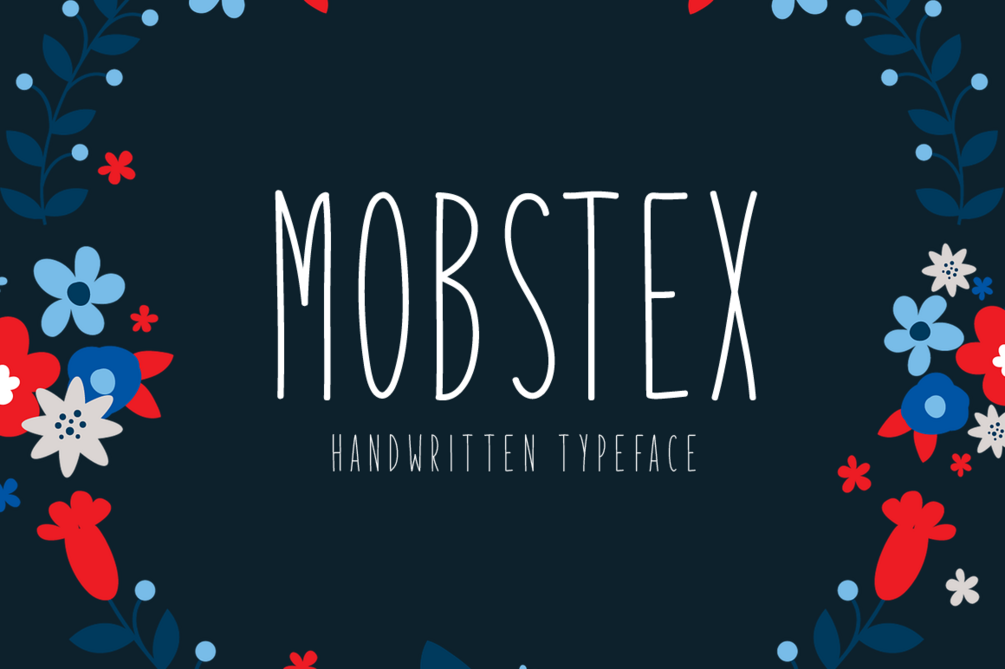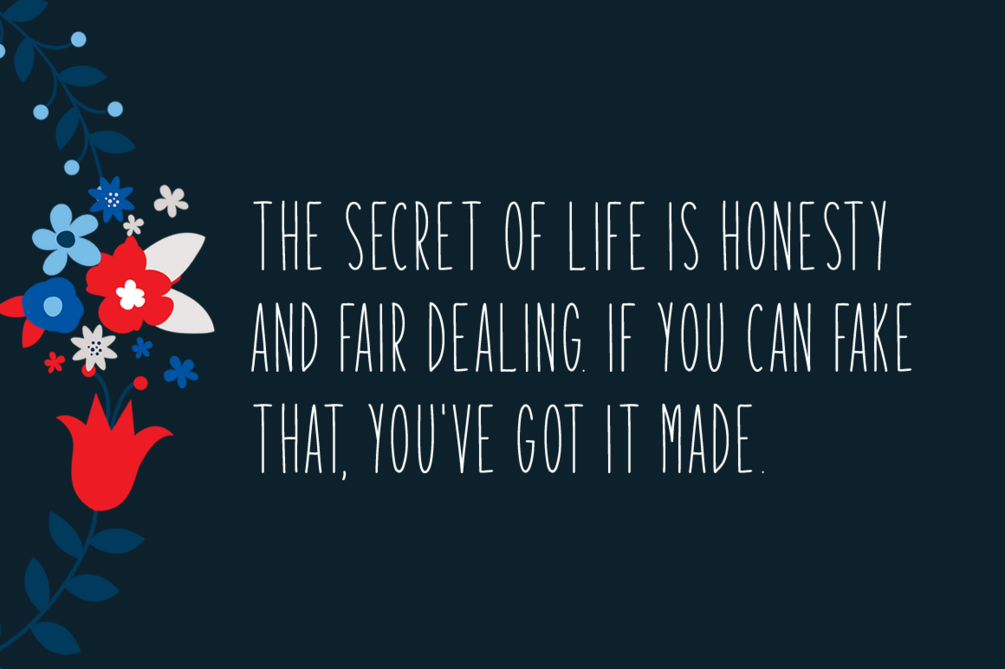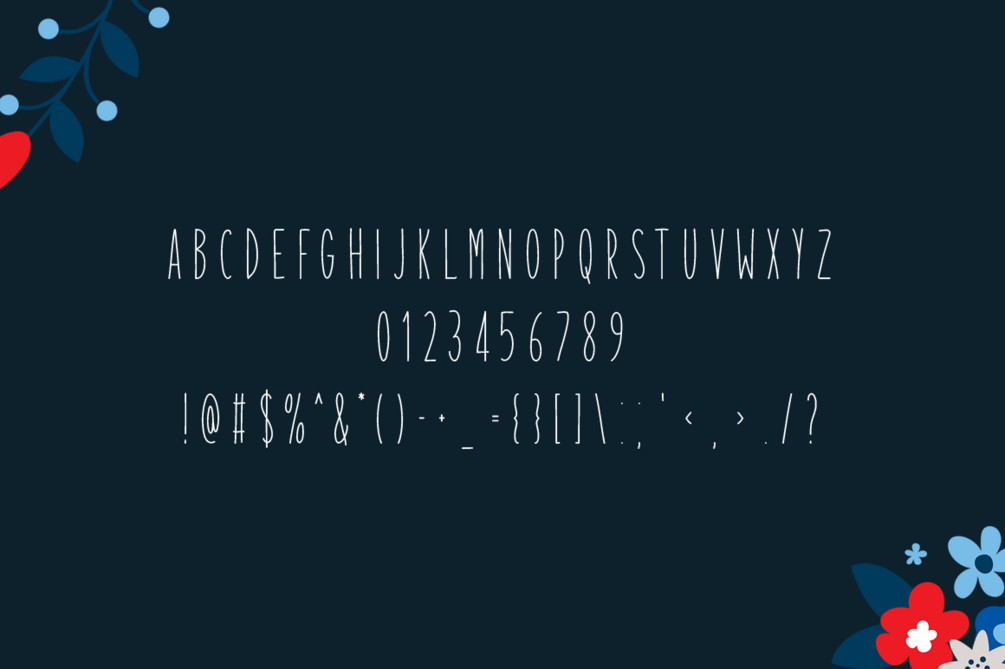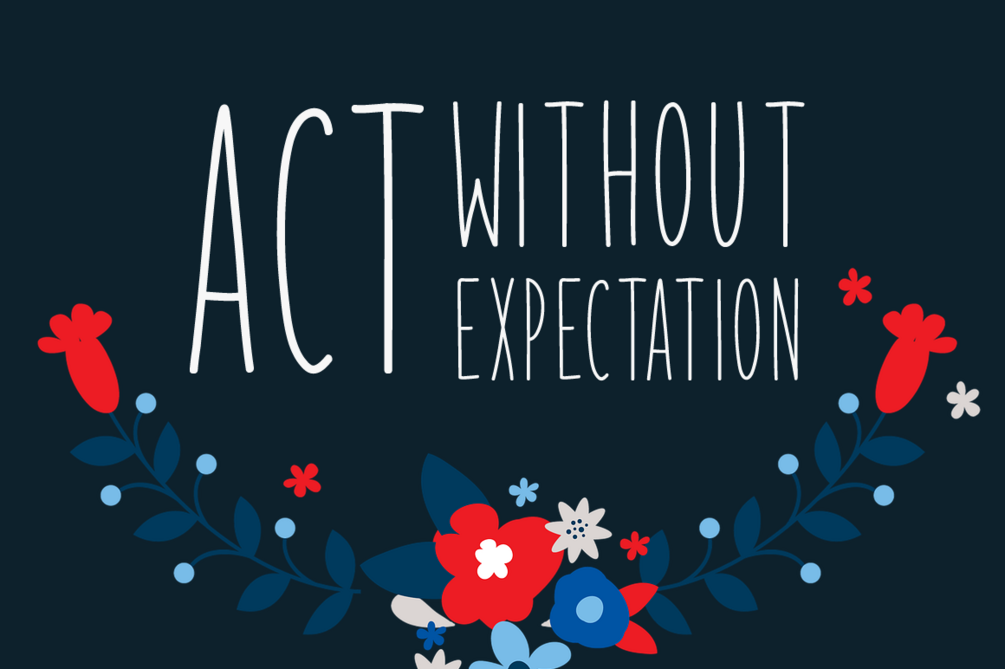
Mobstex Typeface
Mobstex is a brand new handwritten display font perfectly suited for a variety of projects. Fall in love with its delicate look & feel!